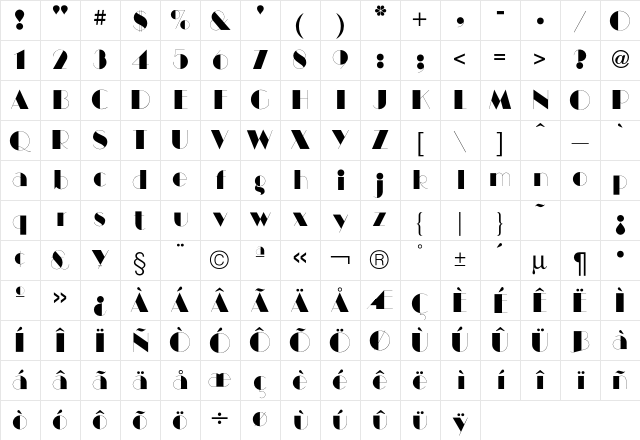
L SCManhattan Free Font
L SCManhattan
Style: SCManhattan
L is a composed and adaptable typeface that performs quietly and consistently across a wide range of design contexts.